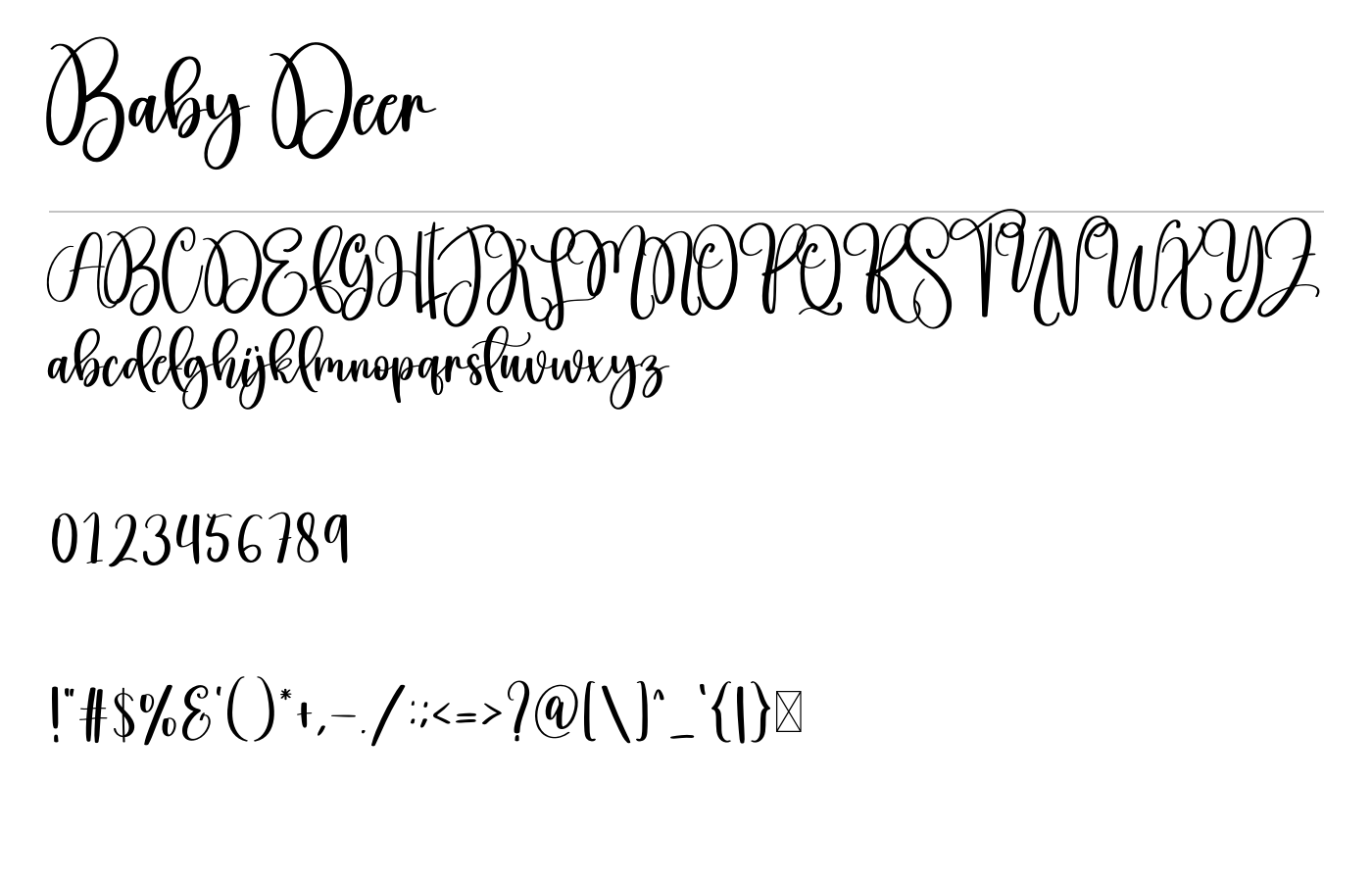
Baby Deer is a delicate and elegant script font featuring flowing, whimsical letterforms with graceful swashes and high contrast strokes. Its playful yet refined style makes it perfect for branding, invitations, and packaging where a charming, feminine touch is desired. The font’s light weight and elaborate curves create an inviting, hand-lettered feel that works beautifully in decorative headlines and logo design.
Baby Deer Font
About Baby Deer Font